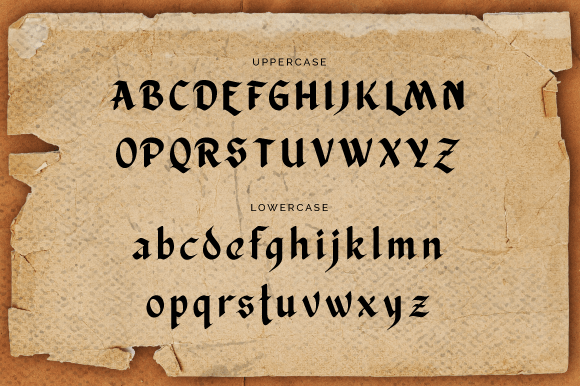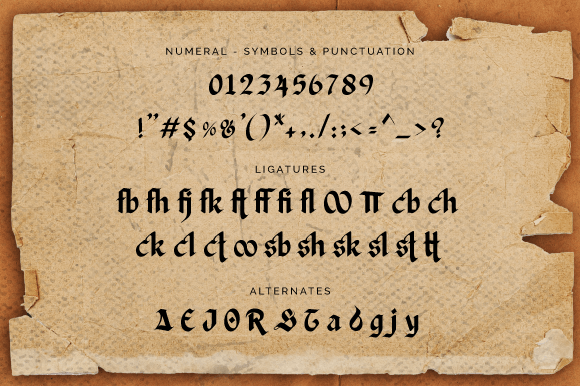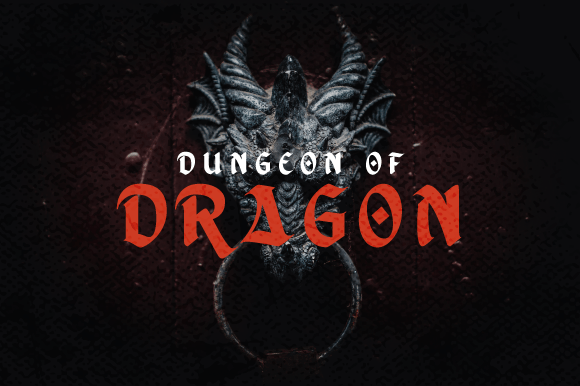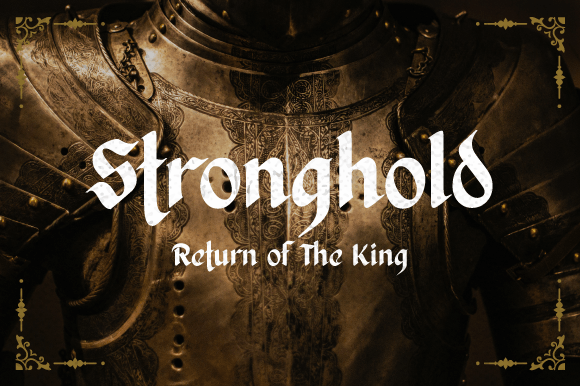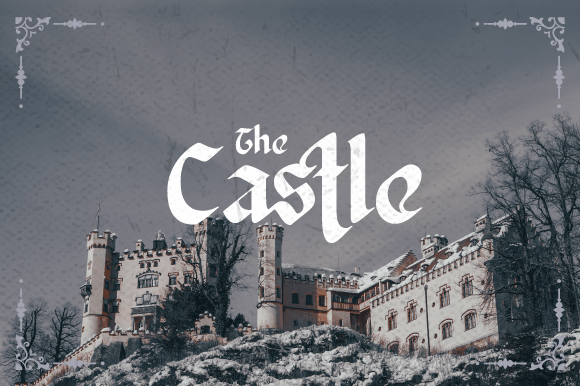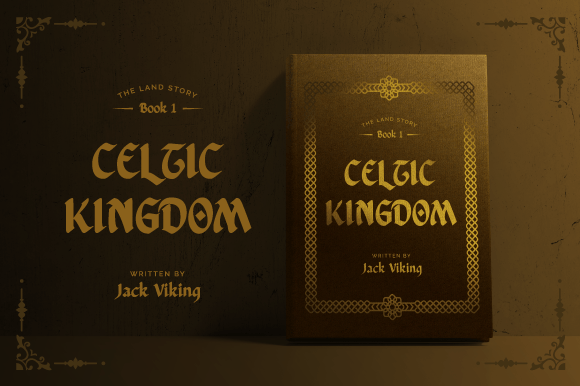
Introduction to Irish King Font
Have you ever stumbled upon an old, mysterious book with intricate letters that seemed to whisper tales of the past? That’s the magic of the Irish King Font – a blackletter display typeface that brings the mystique of the Middle Ages into the modern world. Its classic design, infused with a Celtic feel, will transport your creative projects to a world of wonder and enchantment.
Key Features of Irish King Font
- Features a unique and intricate design, making it perfect for use in titles, headings, and other prominent text elements.
- Designed with a high level of detail and craftsmanship, resulting in a font that is both visually striking and highly legible.
Honest Review: Irish King Font
As a designer, I’m always on the lookout for unique and high-quality fonts to elevate my creative projects. The Irish King Font caught my attention, and I decided to give it a try.
What works well: ✨ This font has a regal, vintage vibe that’s perfect for projects that need a touch of sophistication. The high-quality design is evident in the clean lines and smooth transitions between letters. The font also includes a transparent background option, which is a great feature for designers who want to customize their designs.
What doesn’t work well: ⚠️ While the font is free to download, the available weights and styles are somewhat limited. This might be a drawback for designers who need a wide range of options for their projects. Additionally, the font may not be suitable for small text sizes, as it can become blurry.
Overall impression: I was pleasantly surprised by the quality and character of the Irish King Font. It’s a great addition to any designer’s toolkit, especially for creative projects that require a unique and eye-catching look.
Key features:
- High-quality design with clean lines and smooth transitions
- Not suitable for small text sizes
Irish King Font Overview
The Irish King Font is commonly used in creative projects, such as:
Is the Irish King Font suitable for a creative project that requires a bold, elegant design?
Yes, the Irish King Font is perfect for a creative project that requires a bold, elegant design. Its unique style and high-quality design make it an excellent choice for a wide range of creative projects, from branding and marketing materials to editorial and publishing projects.